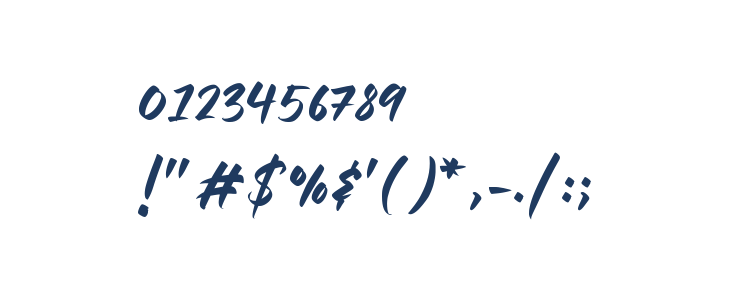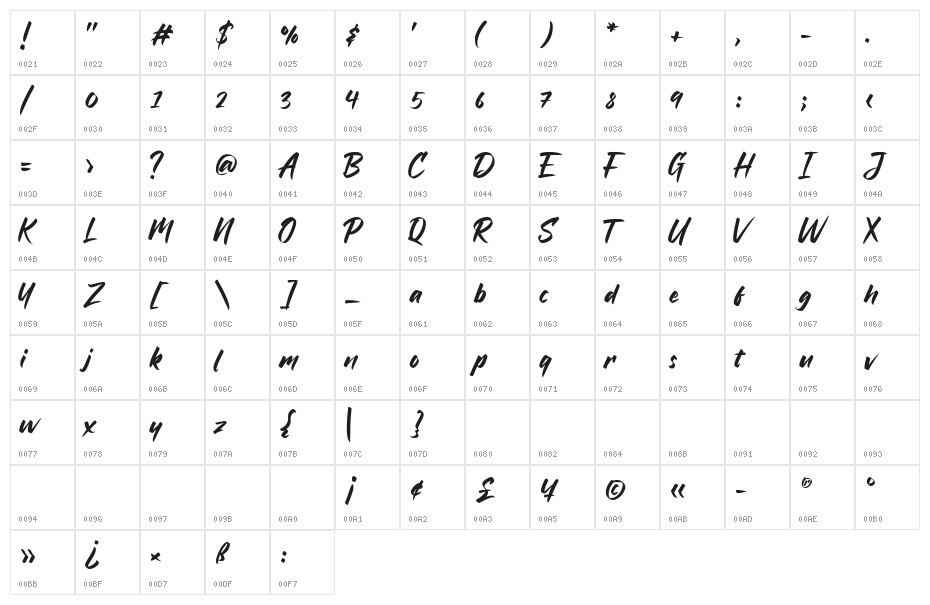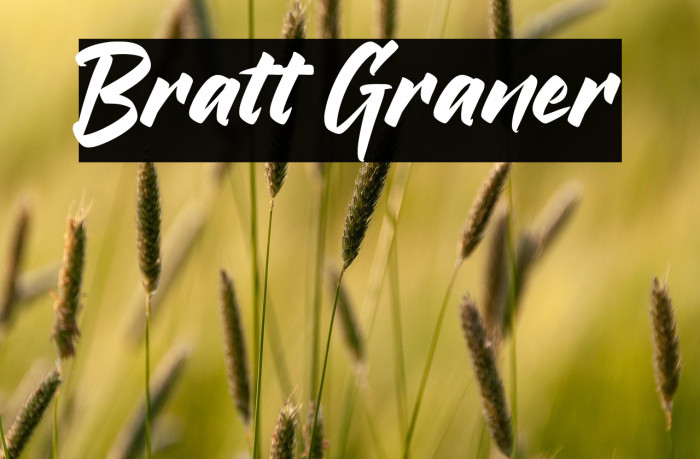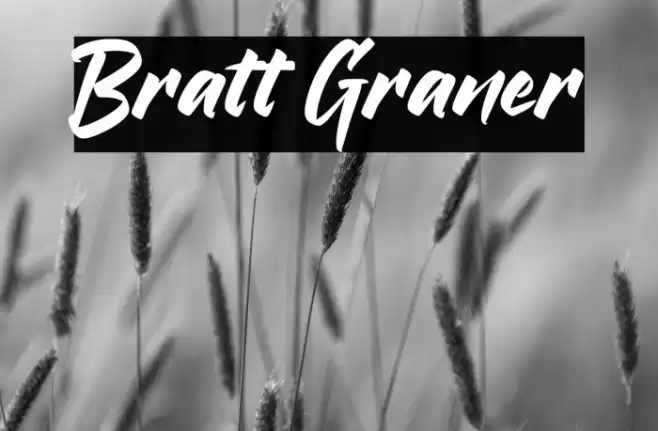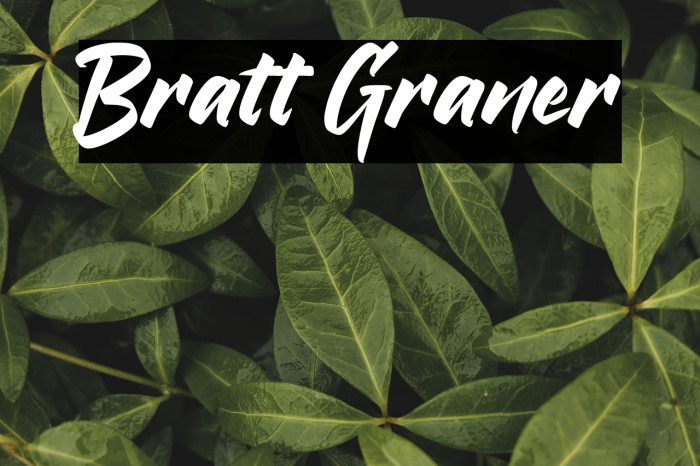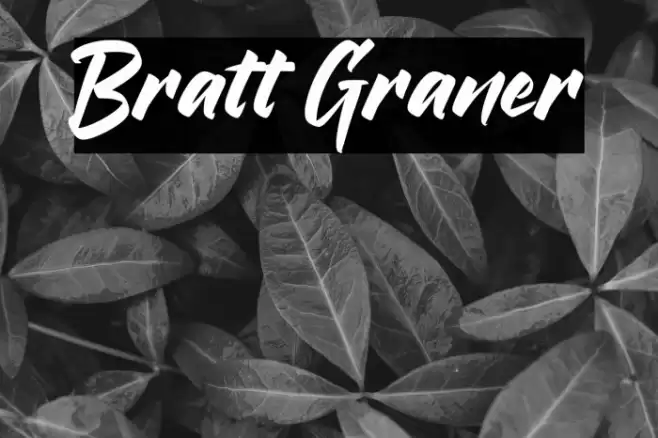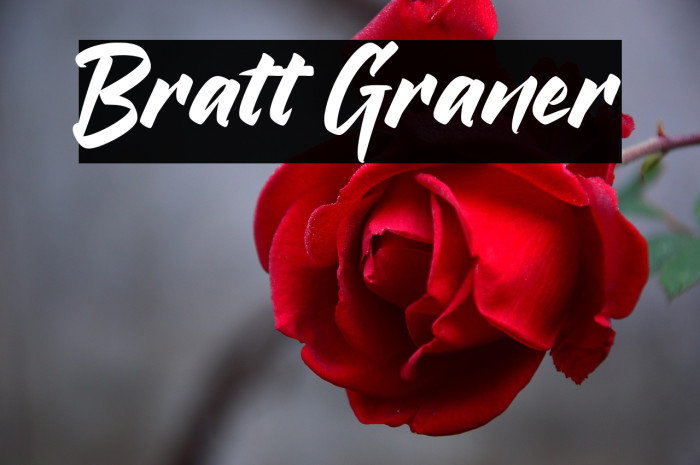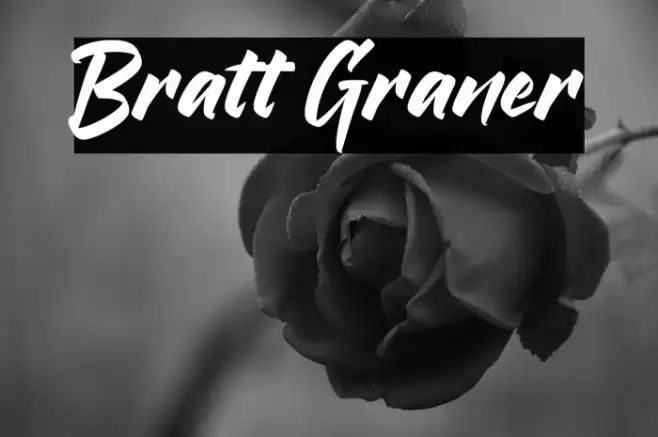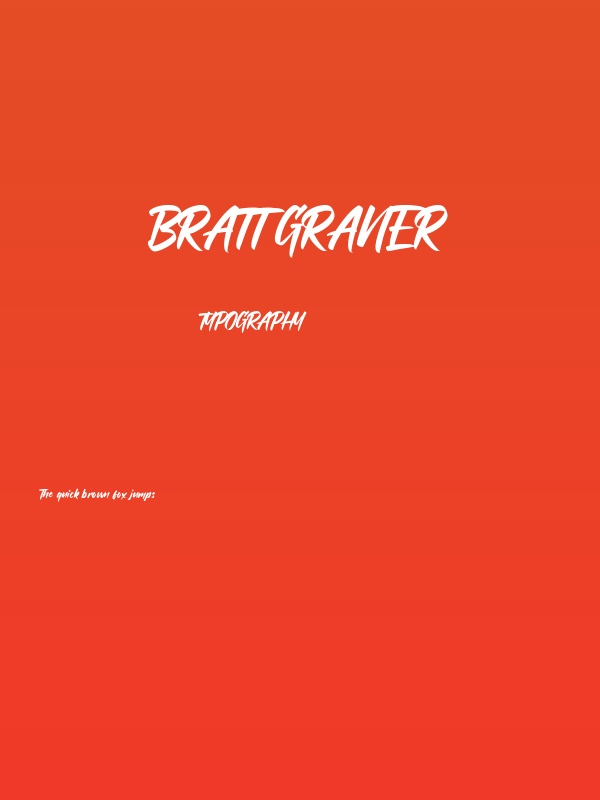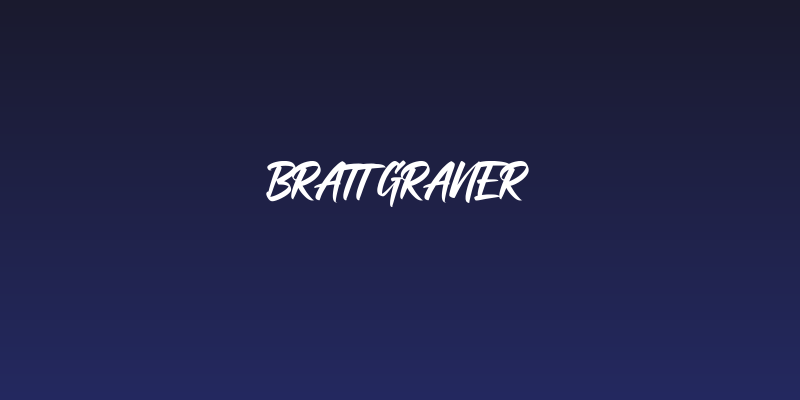
Bratt Graner Font
Bratt Graner Description
This font features a dynamic and expressive style, characterized by its bold and flowing script. The letters are crafted with a brush-like appearance, giving them a hand-painted feel that exudes energy and creativity. The uppercase letters are slightly larger and more pronounced, while the lowercase letters maintain a consistent flow, enhancing readability. The numerals and special characters are designed to match the overall aesthetic, ensuring a cohesive look across all text elements. This font's unique style makes it ideal for projects that require a personal and artistic touch.